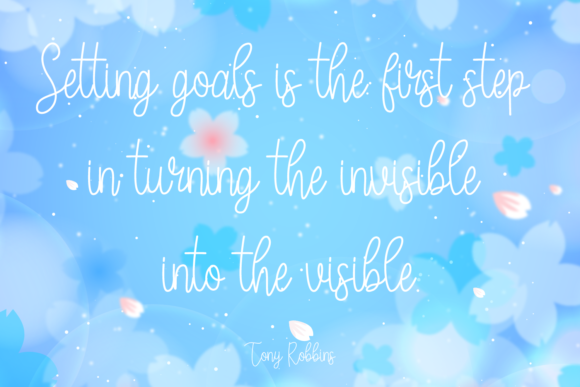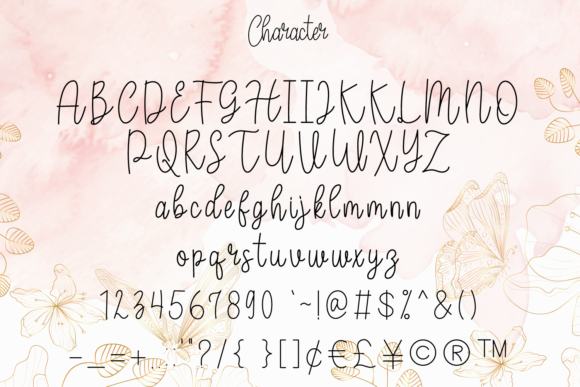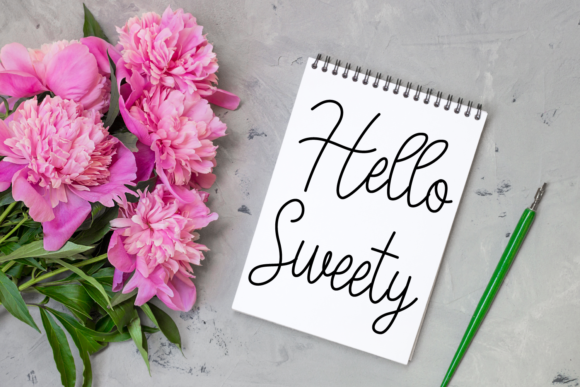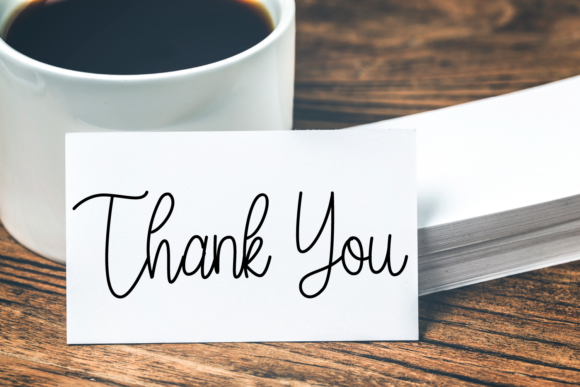
Where Farmhouse Font Font
About Where Farmhouse Font
Where Farmhouse is a beautiful and whimsical script font. It has an elegant, and modern look that can be used for logos, branding, invitations, stationery, wedding designs, social media posts, and much more!